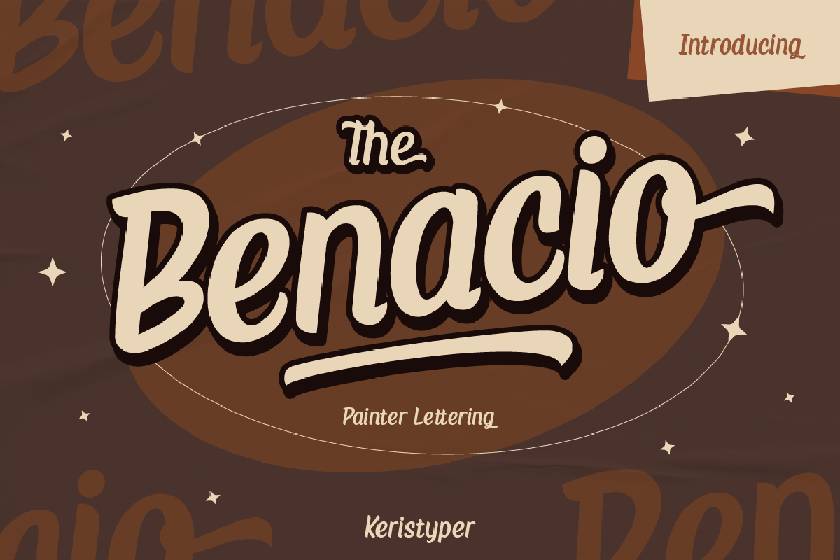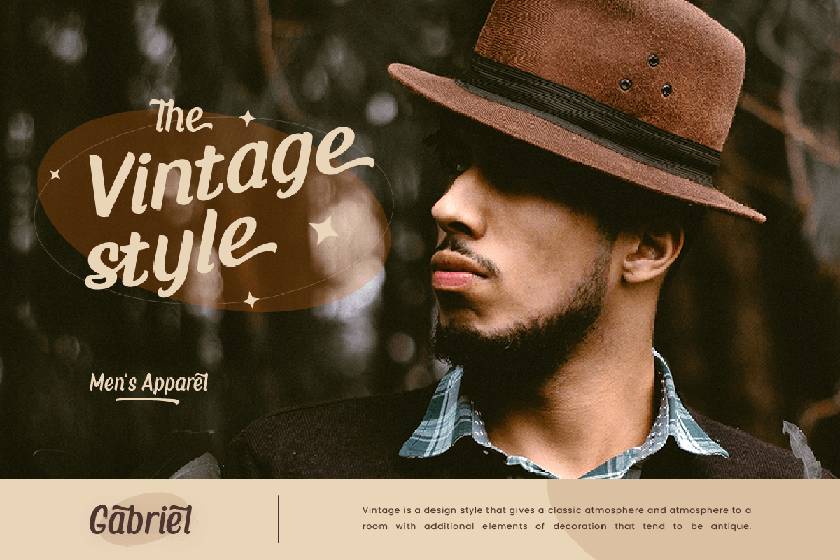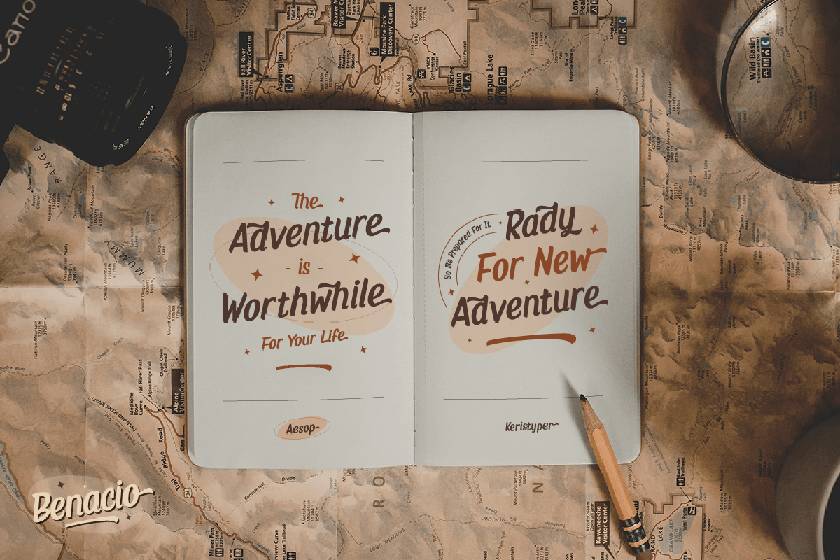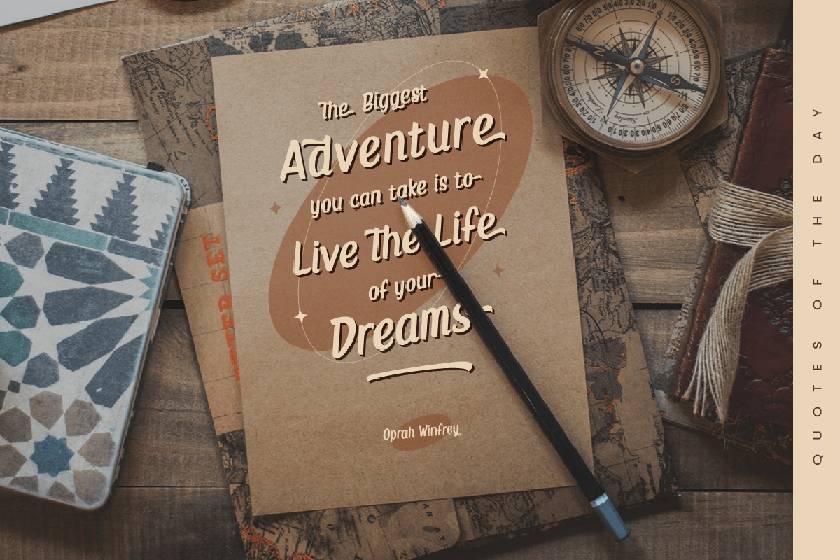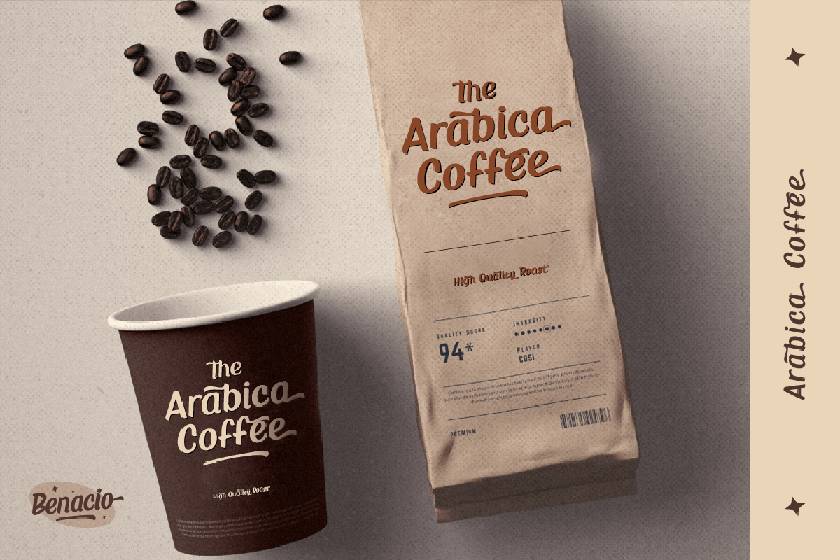
Benacio is a lively sans-serif font with a handwritten feel, characterized by its smooth, rounded strokes and slight slant that adds a casual yet polished touch. Its medium weight and open spacing make it highly readable, perfect for conveying warmth and friendliness while maintaining clarity. This font works well for branding, logos, and editorial designs that seek to balance approachability with style.
Benacio Font
About Benacio Font
| Font family | Benacio Font |
| Designer | Tezar Tantular |